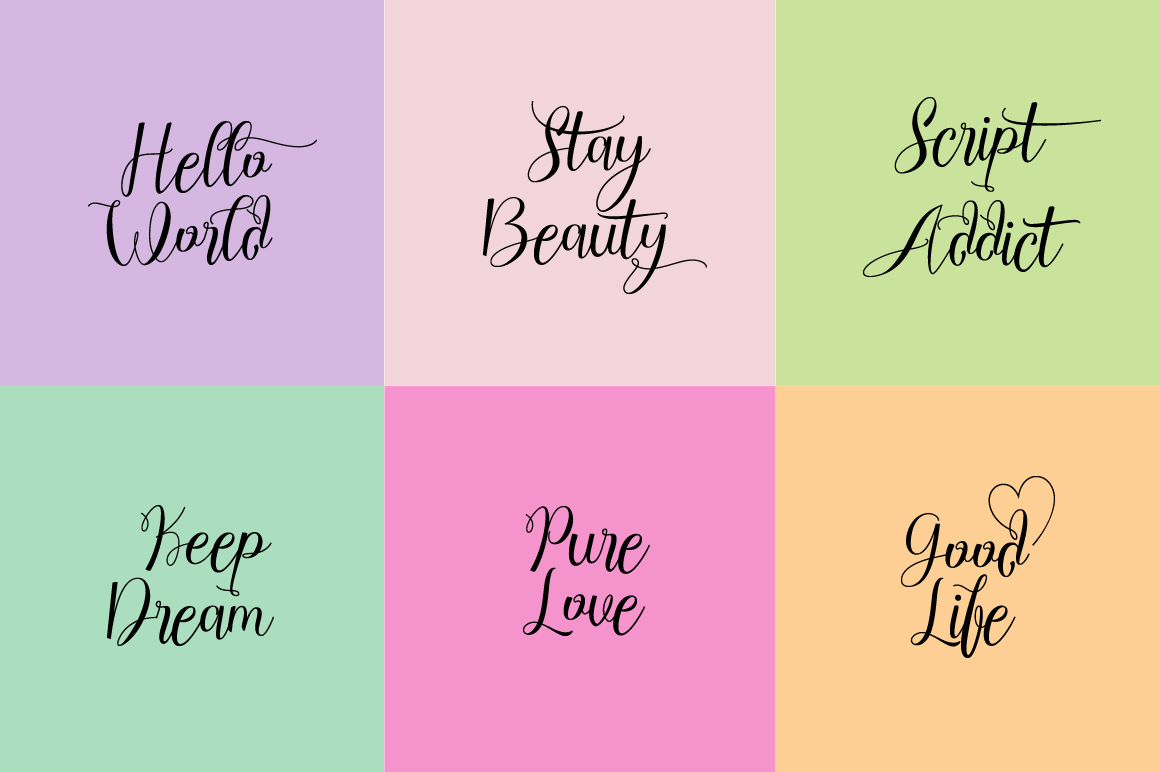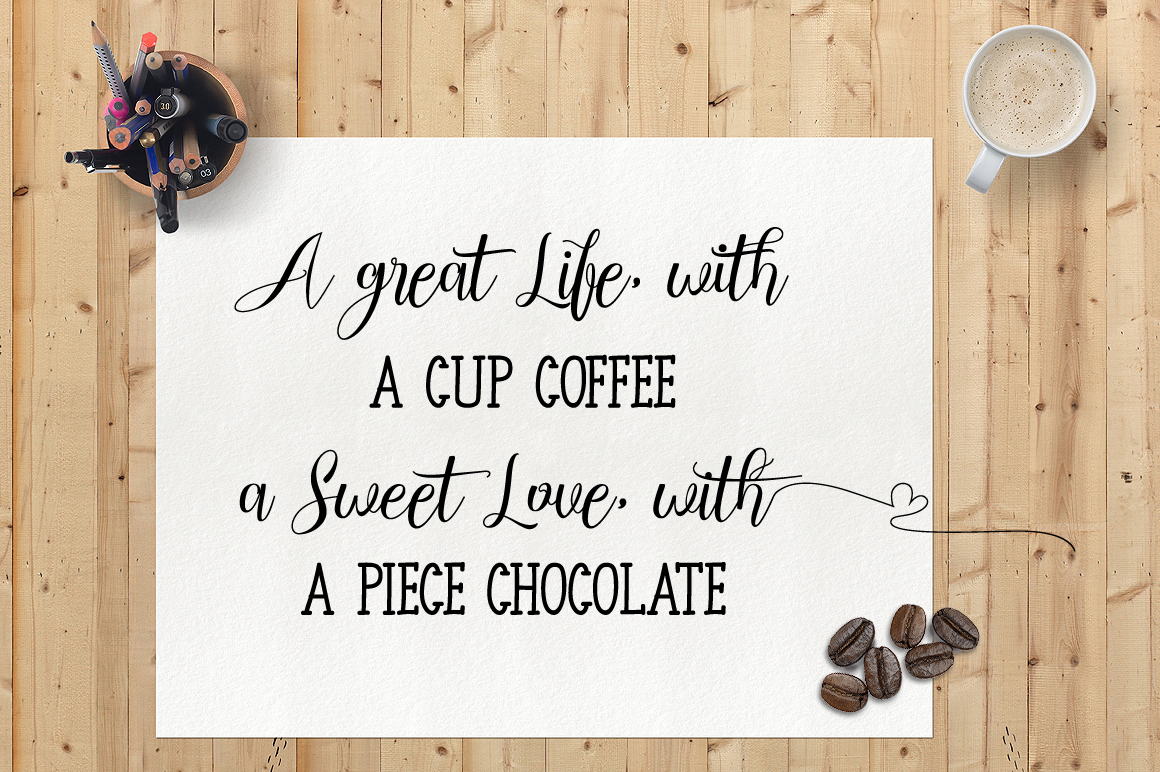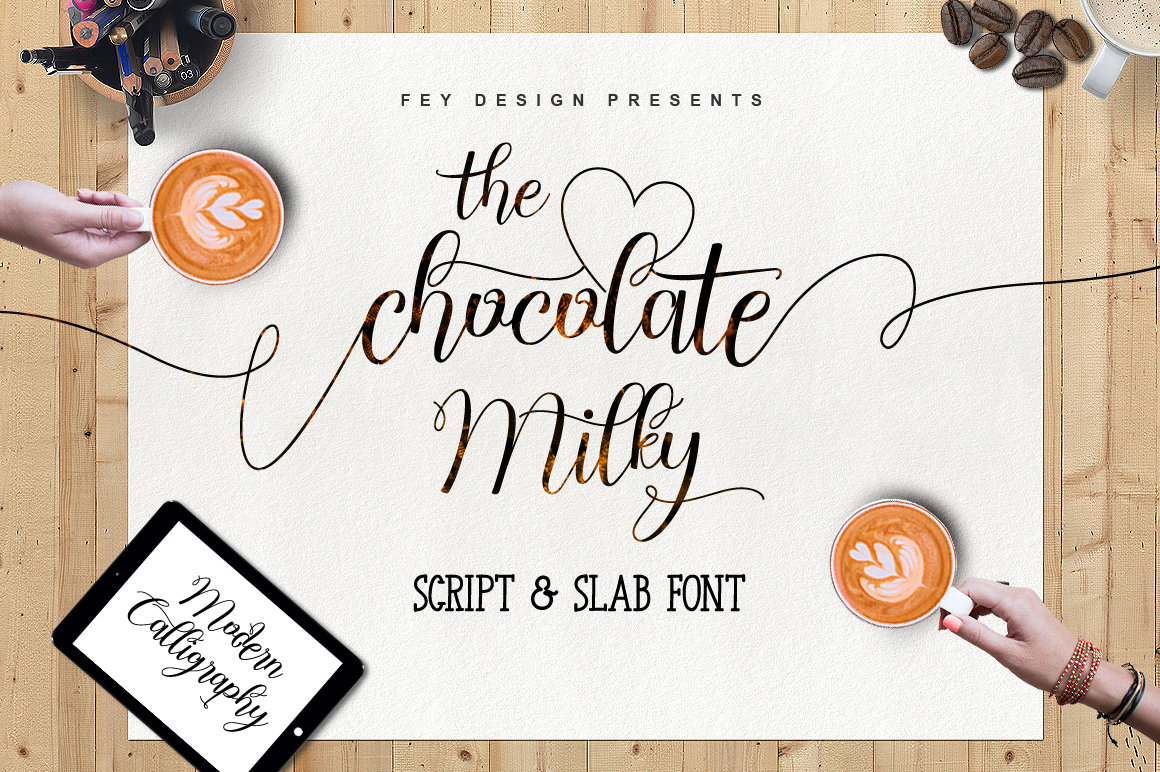
Chocolate Milky Script
Chocolate Milky Script Font
Chocolate Milky is a modern calligraphy script style, with many extras ligature and alternates glyphs.
Suitable for design, element design, wedding, event, t-shirt, logo, badges, sticker, and awesome work, etc…